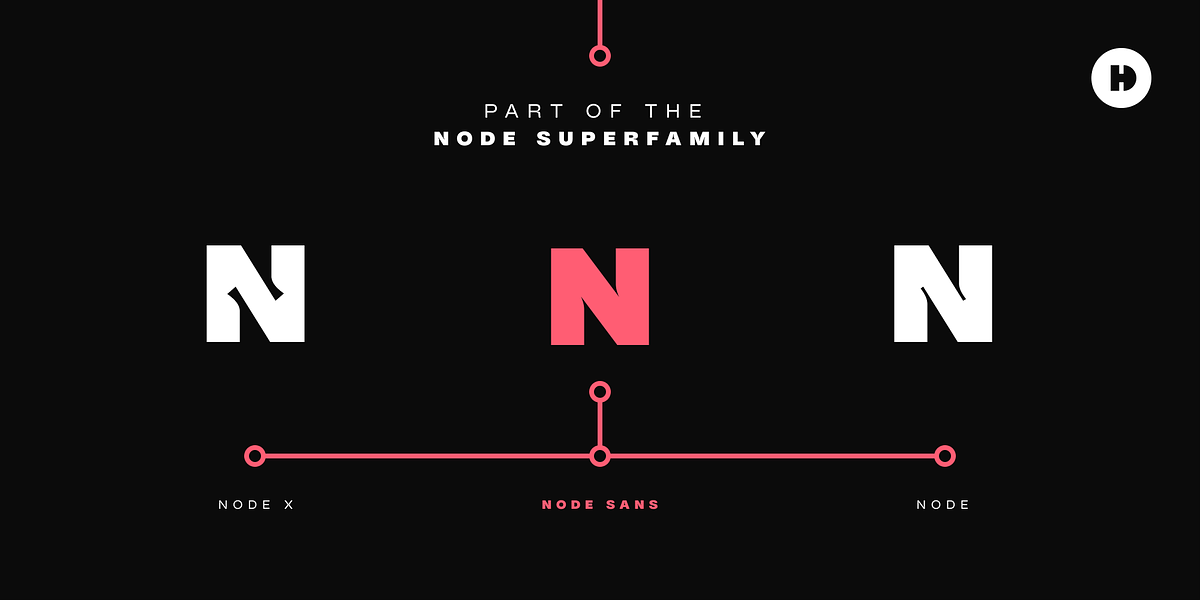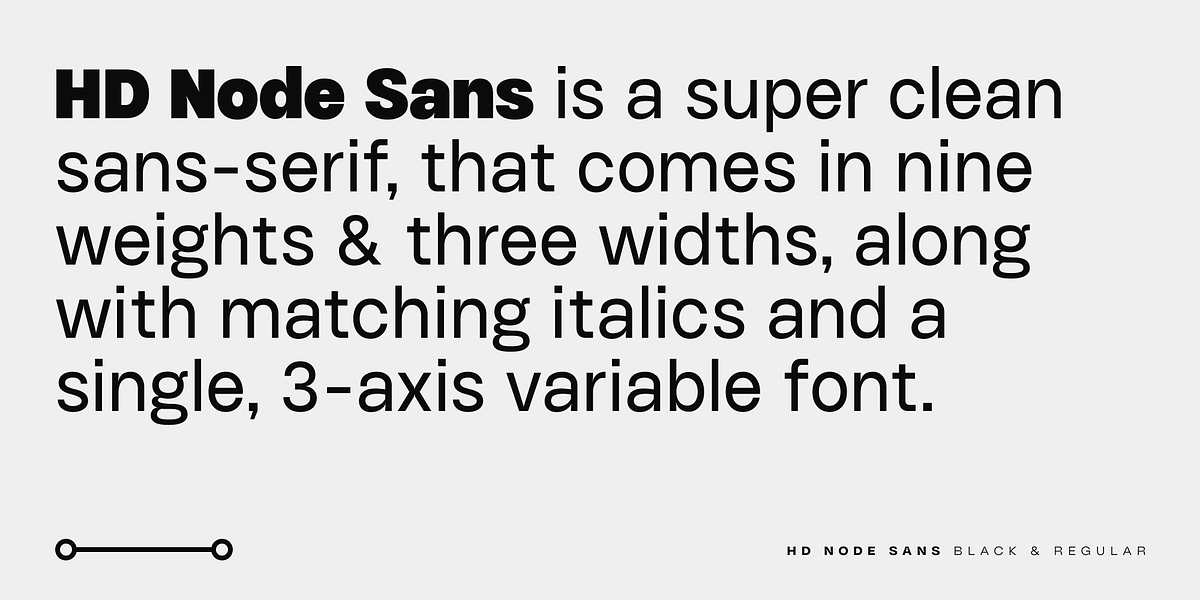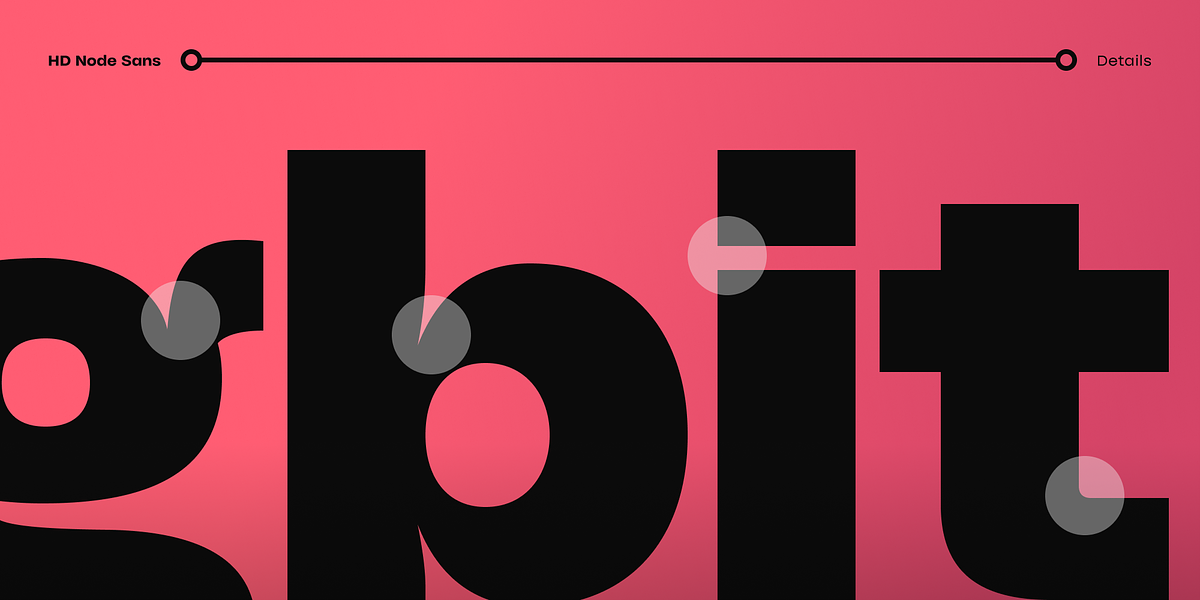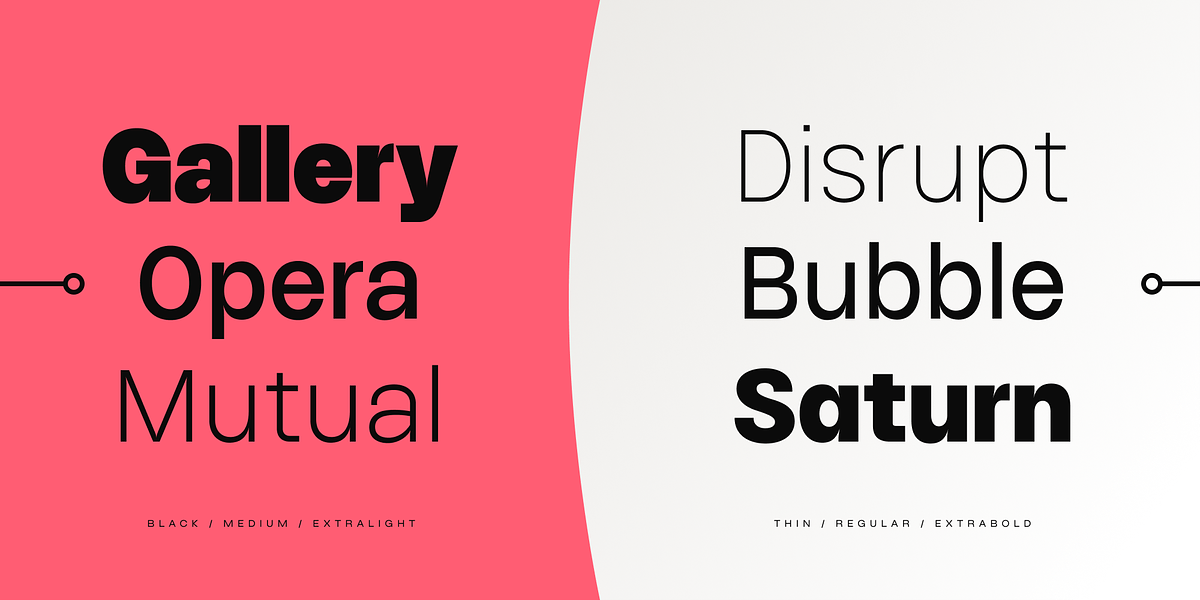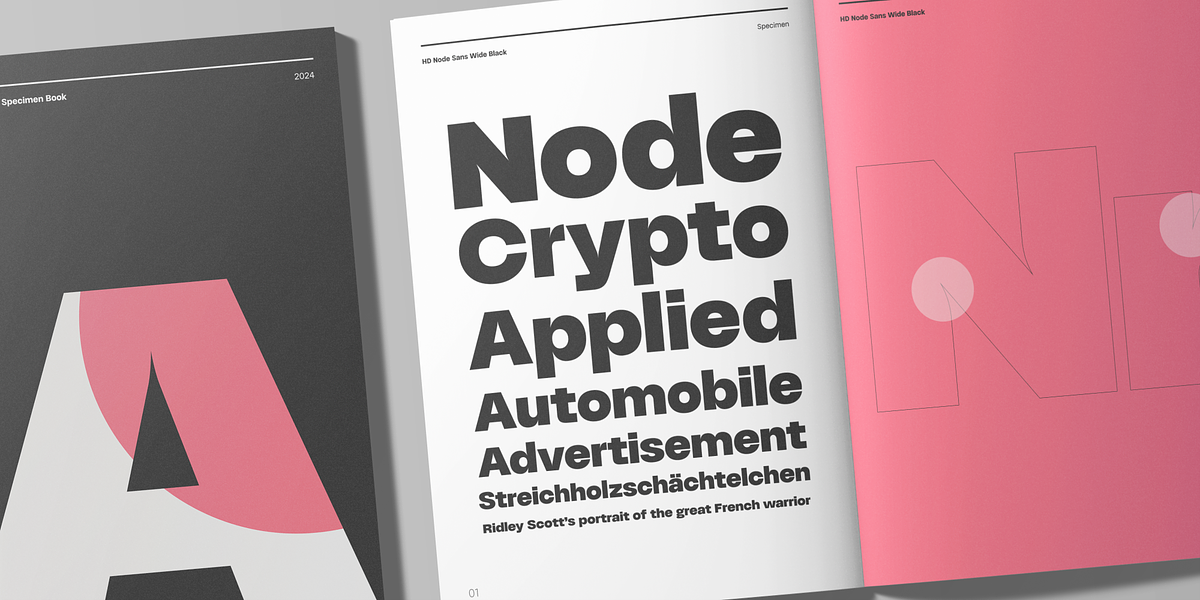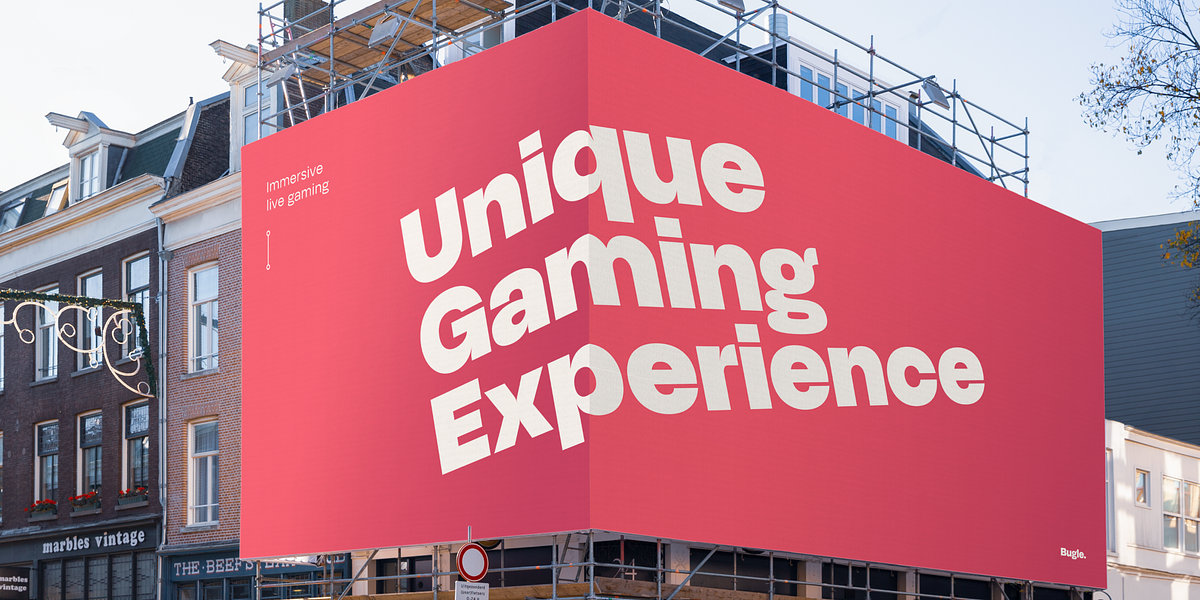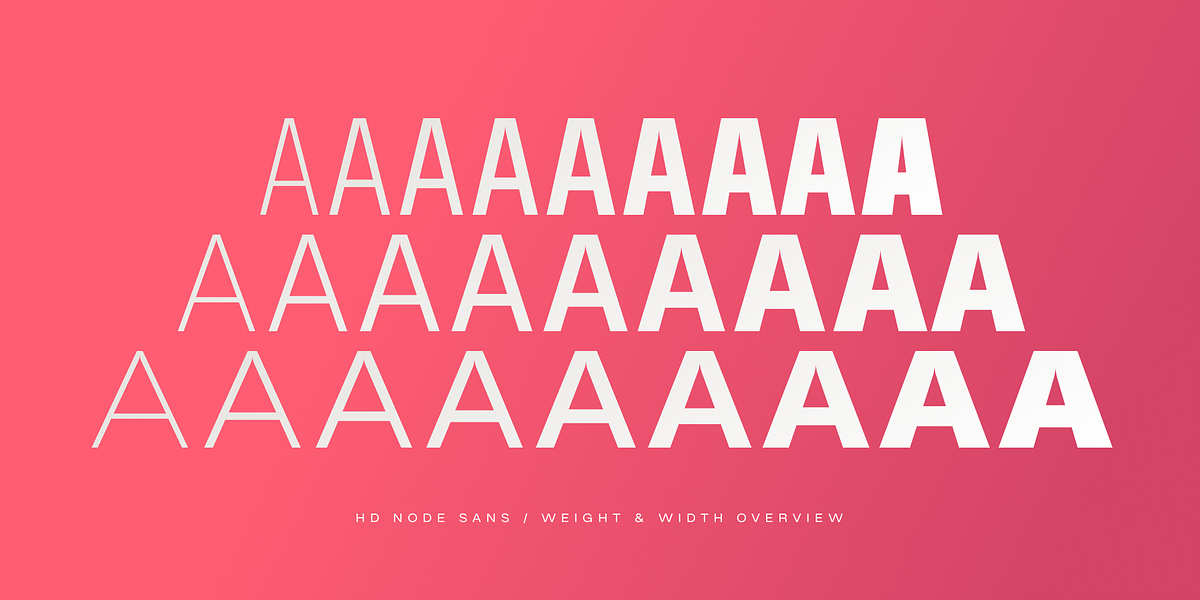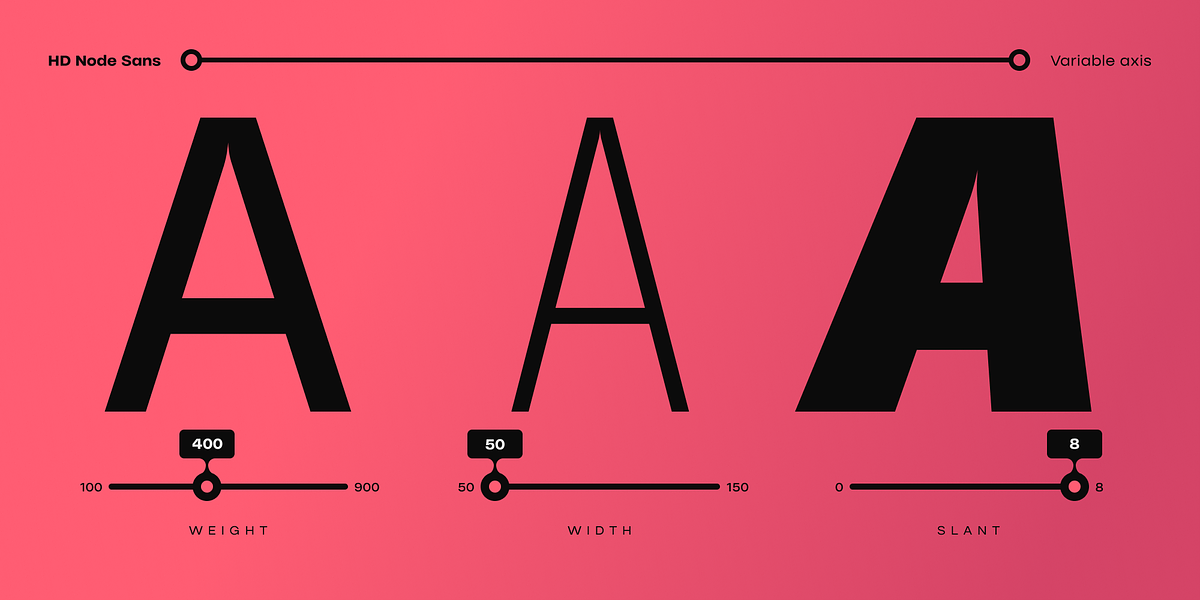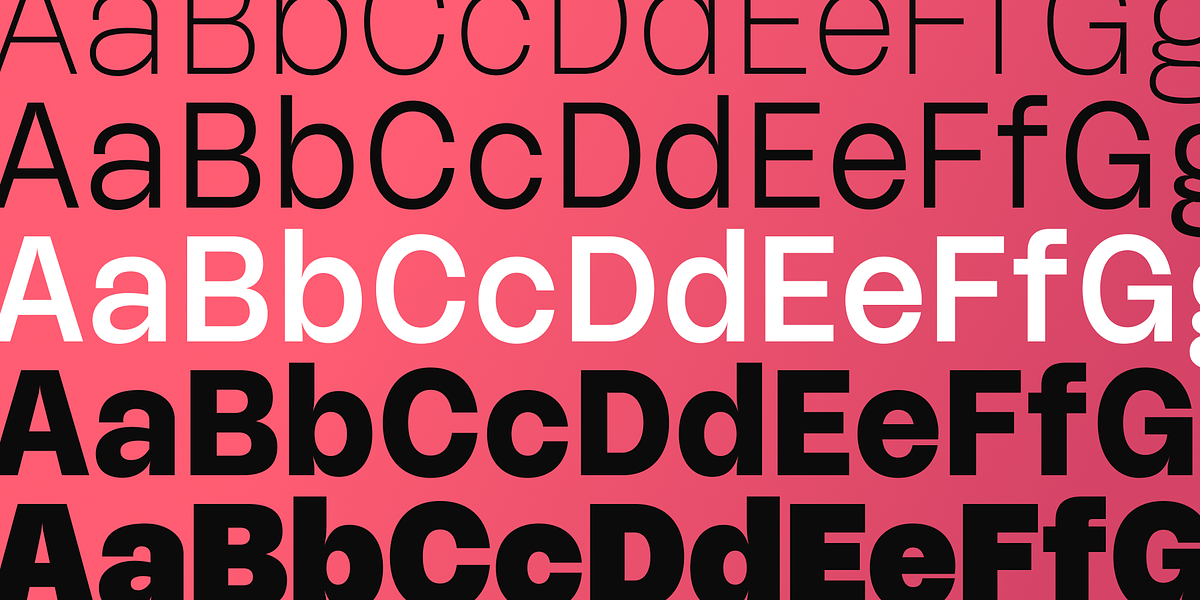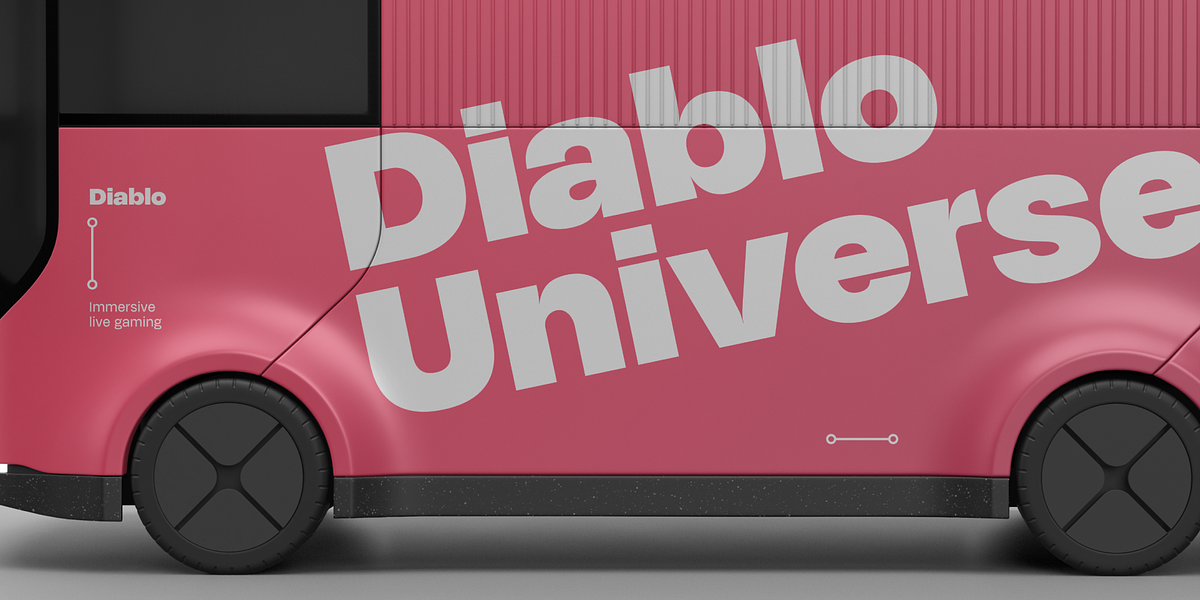
HD Node Sans
Node Sans is a geometric sans-serif font designed for versatility. It offers 54 individual styles across three widths and nine weights, including italics. The black weights provide strong impact, while the thin weights are delicate. While primarily intended as a display font for applications like logos and posters, its design allows for use at smaller sizes suitable for websites and apps. The font includes features like extensive Latin support, arrows, circled and squared numbers, and alternate character designs.